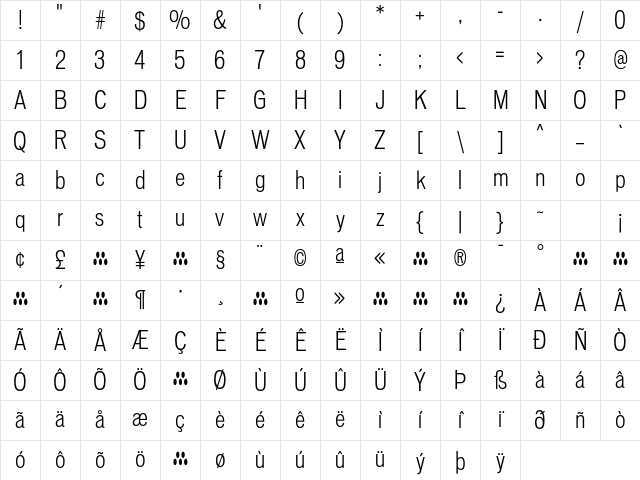
Vonnes ThinCondensed
Style: ThinCondensed
Complete Vonnes ThinCondensed glyph index. Displaying only characters natively supported by Vonnes ThinCondensed font.
Design Context for Vonnes
Vonnes is a composed and adaptable typeface that performs quietly and consistently across a wide range of design contexts. Its slender proportions lend an understated elegance to any composition. Its narrow stance lets it pack a punch even in space-constrained designs.